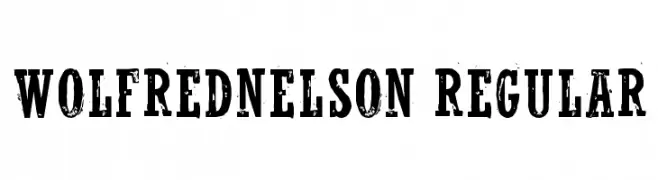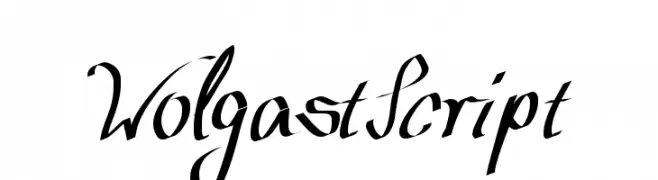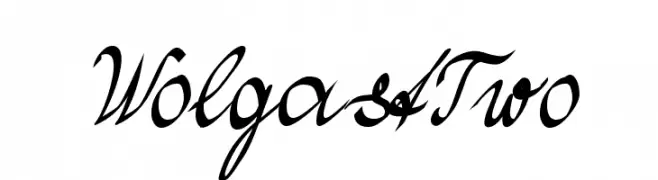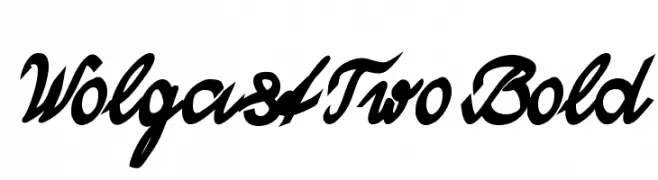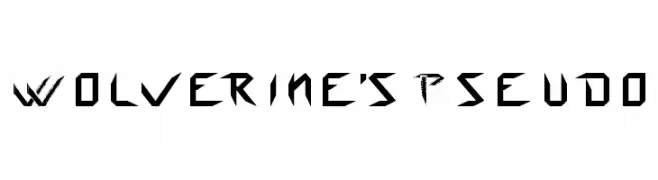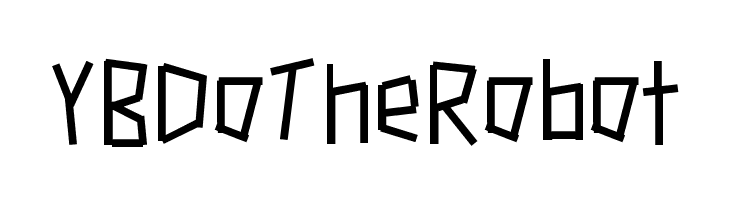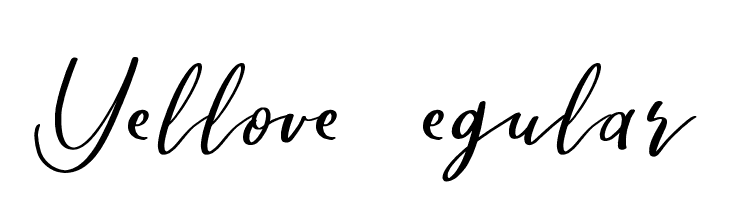
A bold, distressed font with a vintage, rugged appearance.
A bold, italicized font with a dynamic and modern style.
A dynamic and elegant script font with flowing, connected letterforms.
An elegant and flowing script font with ornate loops and flourishes.
A dynamic and elegant cursive font with flowing, interconnected strokes.
A bold, cursive script with fluid, connected characters and a dynamic style.
Elegant handwritten script font.
A lively, cursive font with a handwritten, dynamic style.
A futuristic, angular font with sharp edges and geometric forms.